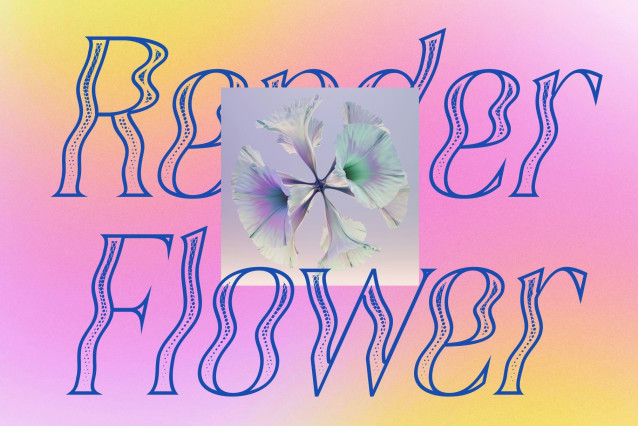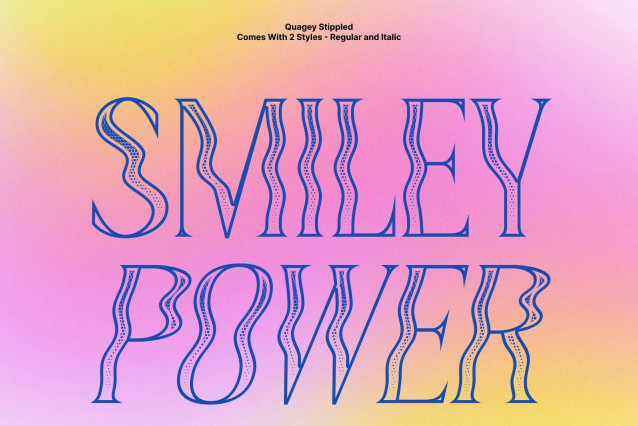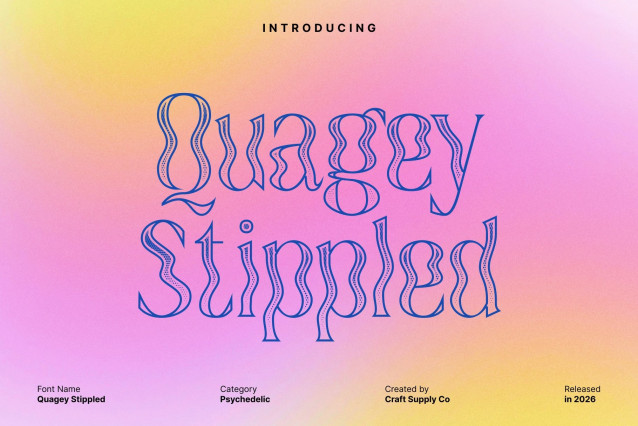
Quagey Stippled Font
Quagey Stippled – Where Letters Dance with Kaleidoscopic Energy
Electrifying Psychedelic Expression
This is a vibrant psychedelic display typeface designed to make every word feel alive. Its playful curves and dynamic shapes create a lively rhythm that turns typography into a visual celebration, giving your message an energetic and unforgettable presence.
Stippled Texture with Artistic Depth
Enhanced with a dense dotted stippled texture, this font brings a handcrafted, vintage-inspired character to its psychedelic forms. The dotwork detail adds richness and dimension, creating a unique artistic finish that feels both retro and expressive.
Bold, Eye-Catching, and Trendy
Perfect for greeting cards, packaging, brand identity, posters, merchandise, and creative campaigns, this typeface instantly grabs attention and adds a trendy, joyful atmosphere to any design.